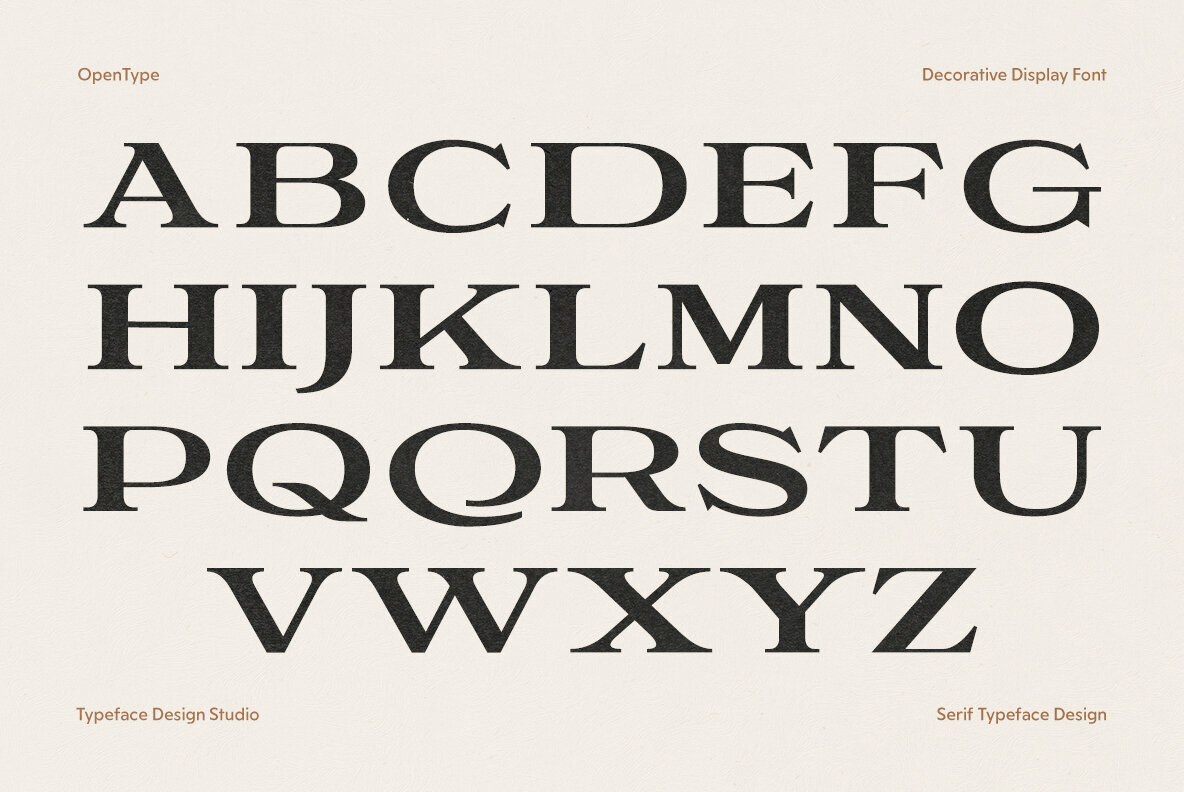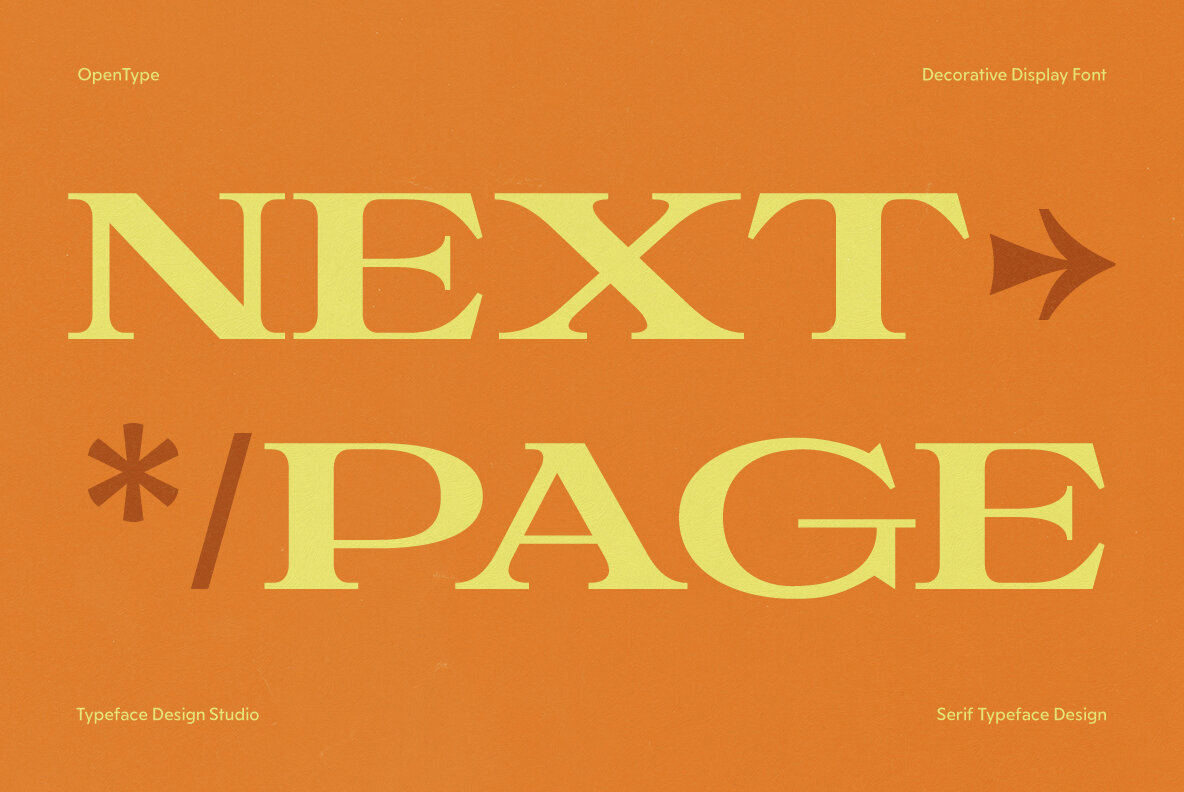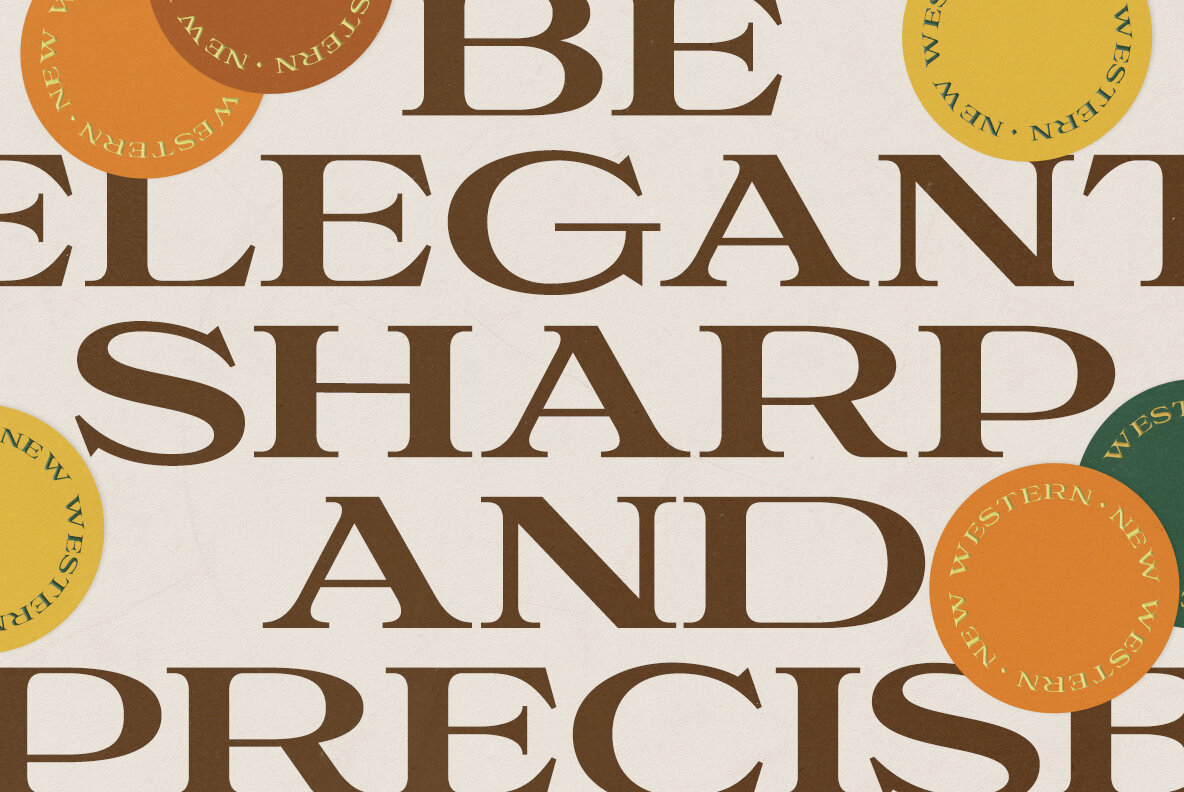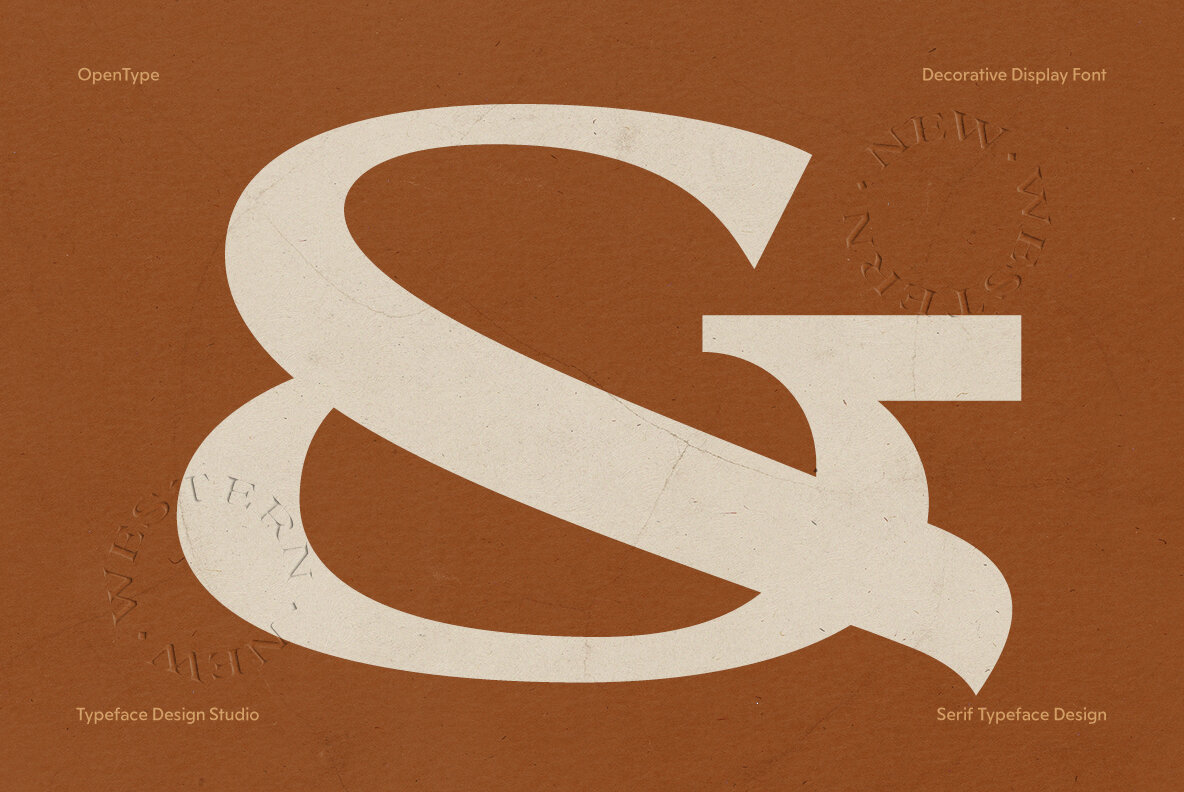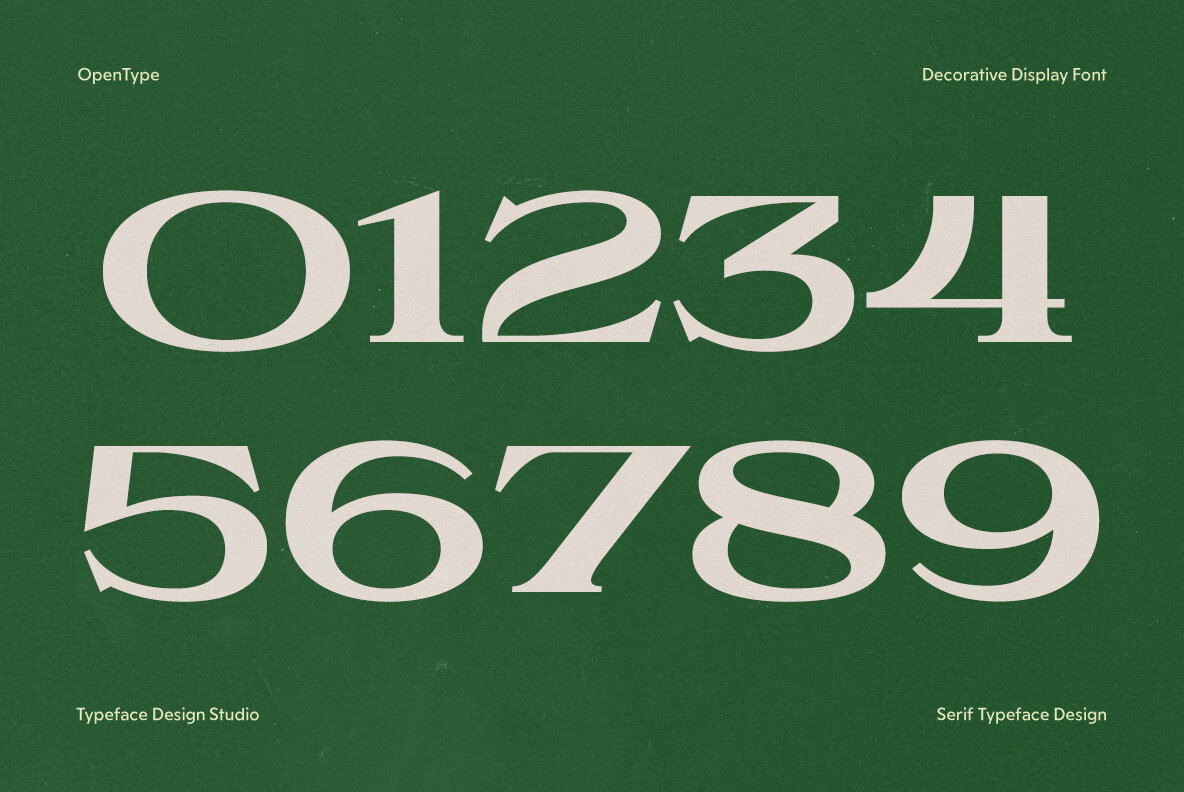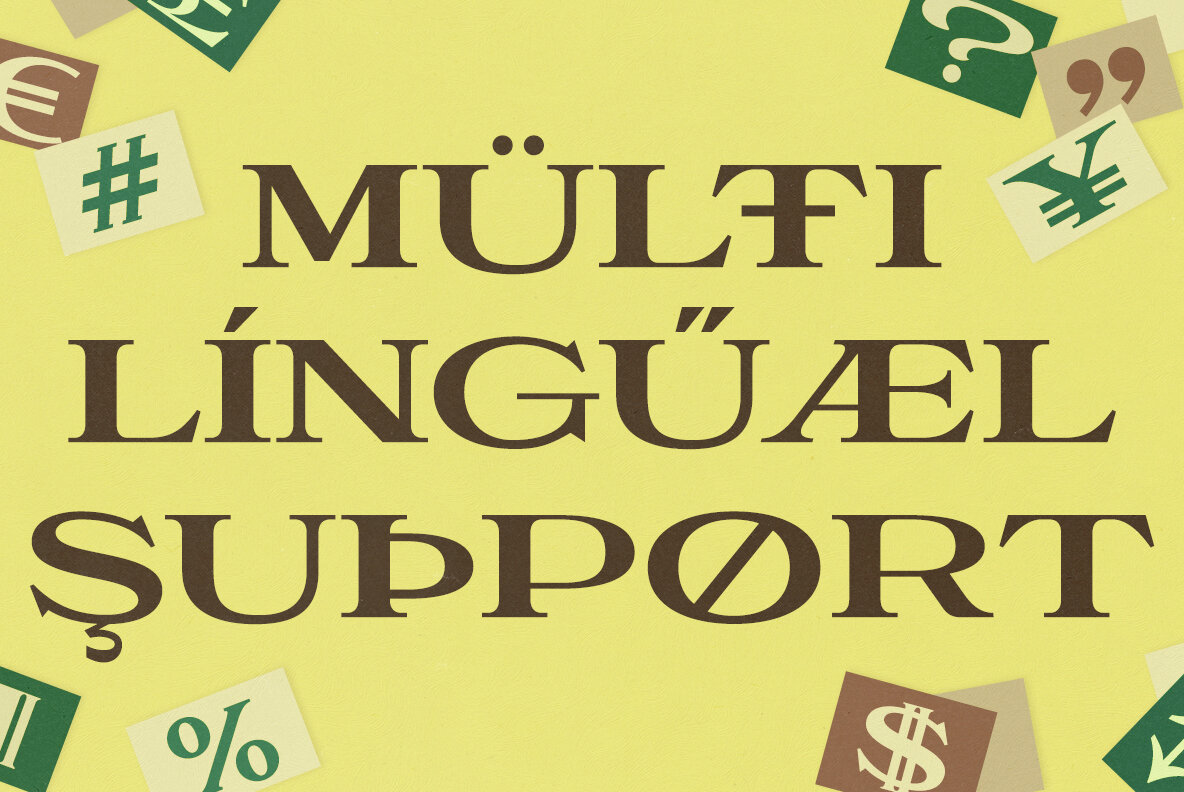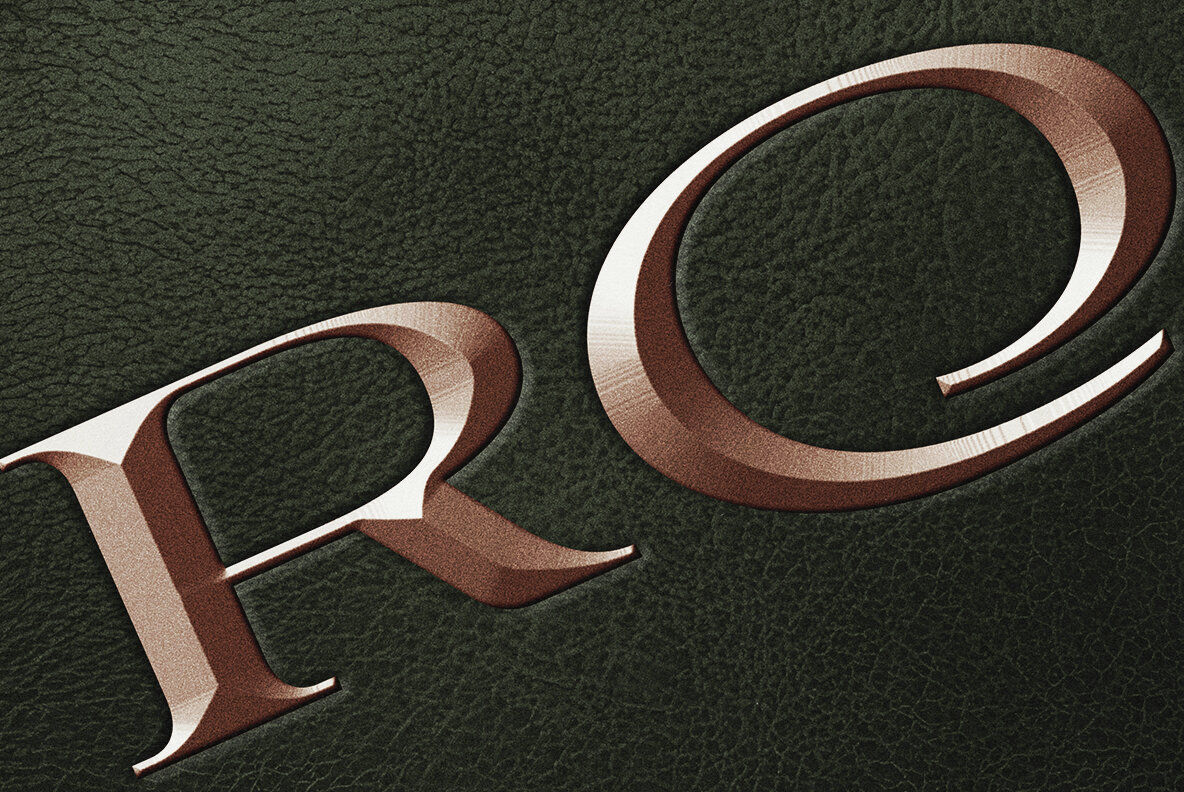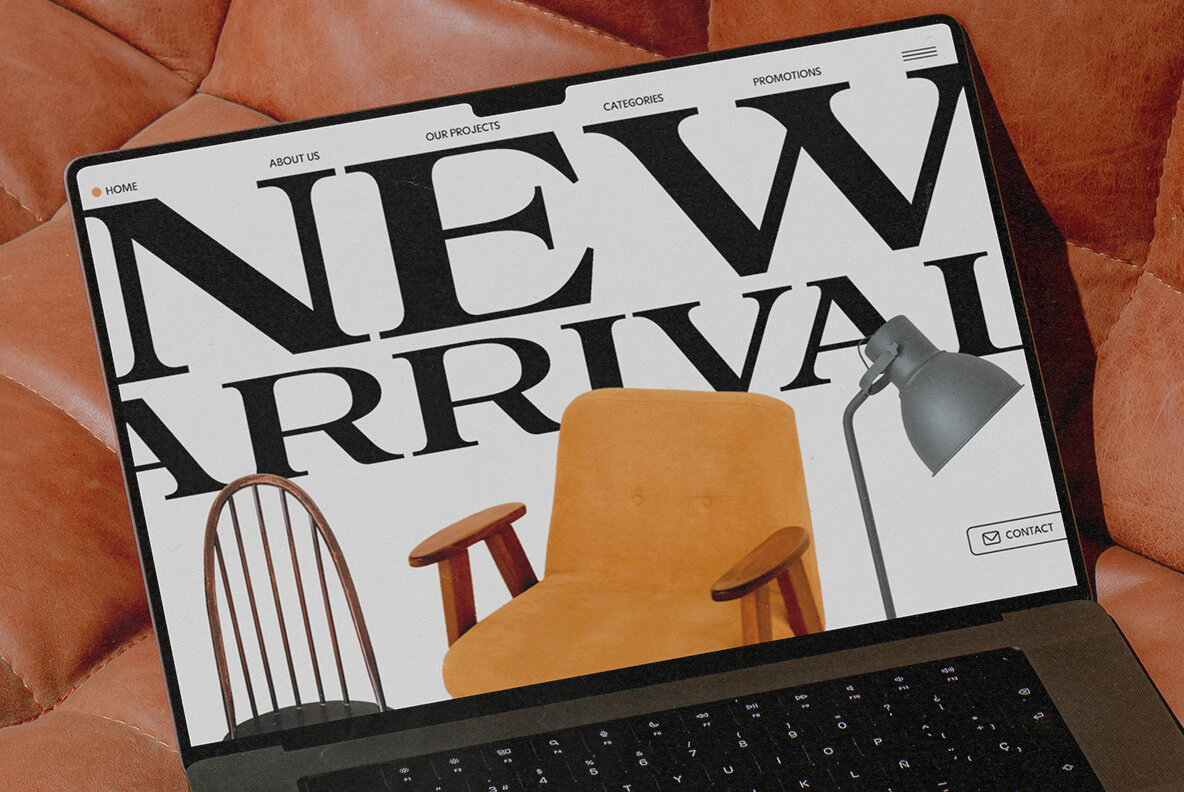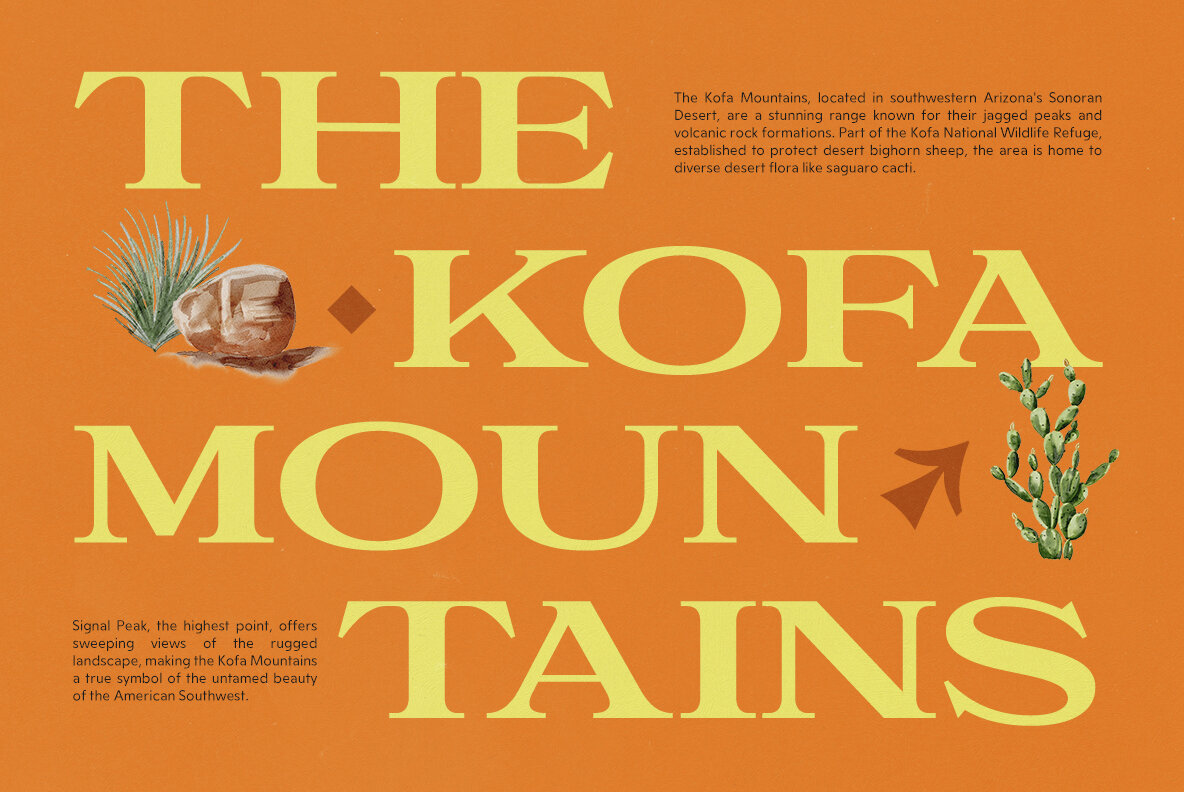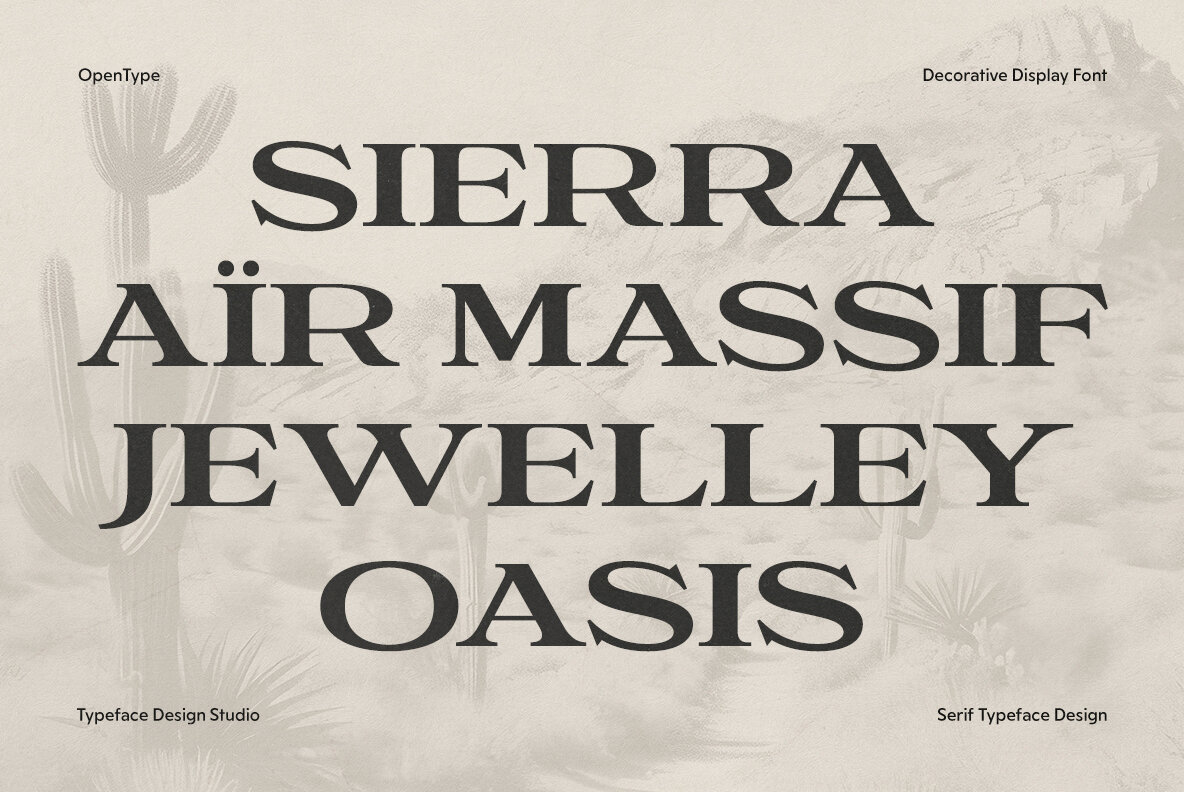
New Western Font
expand_font New Western Font Explore New Western, a serif font merging frontier charm with typographic elegance. Ideal for luxury branding & editorial design. American,Baskerville,Classic,Cowboy,Frontier,Old Style,Serif,Sophisticated,Tds,Timeless,Traditional,Typeface Design Studio,Western,Wide,Wild West,Youworkforthem Explore Exceptional Fonts for Digital and Traditional Media Fontpath offers a large variety of fonts for every designer, all at affordable prices and in multiple formats. Browse our best in class fonts today for all your creative needs, you can find everything you need right here at our site! Fonts,sans,sans serif,retro,script,decorative,title,FontPath 20140312040223 Fontpath offers 200,000+ of the most professional fonts found online, start downloading today! Real-Time Font Discovery at Fontpath